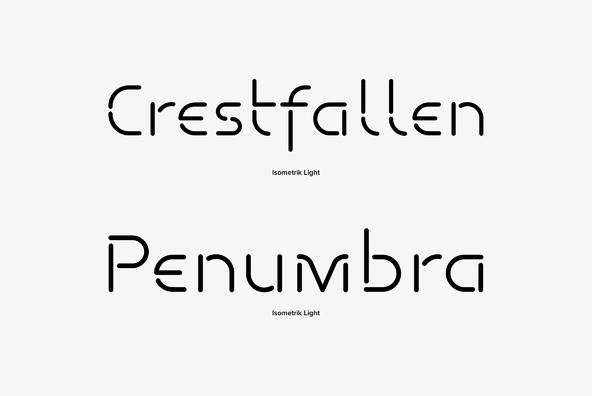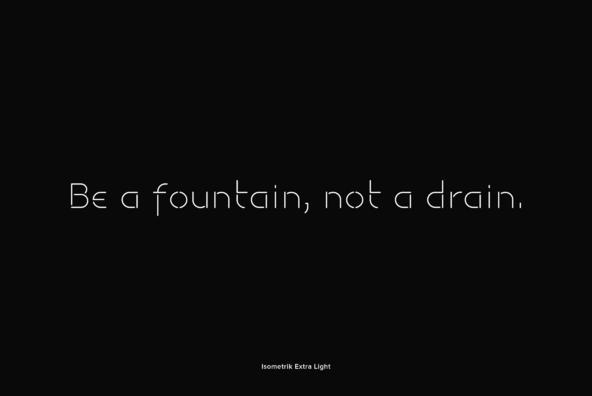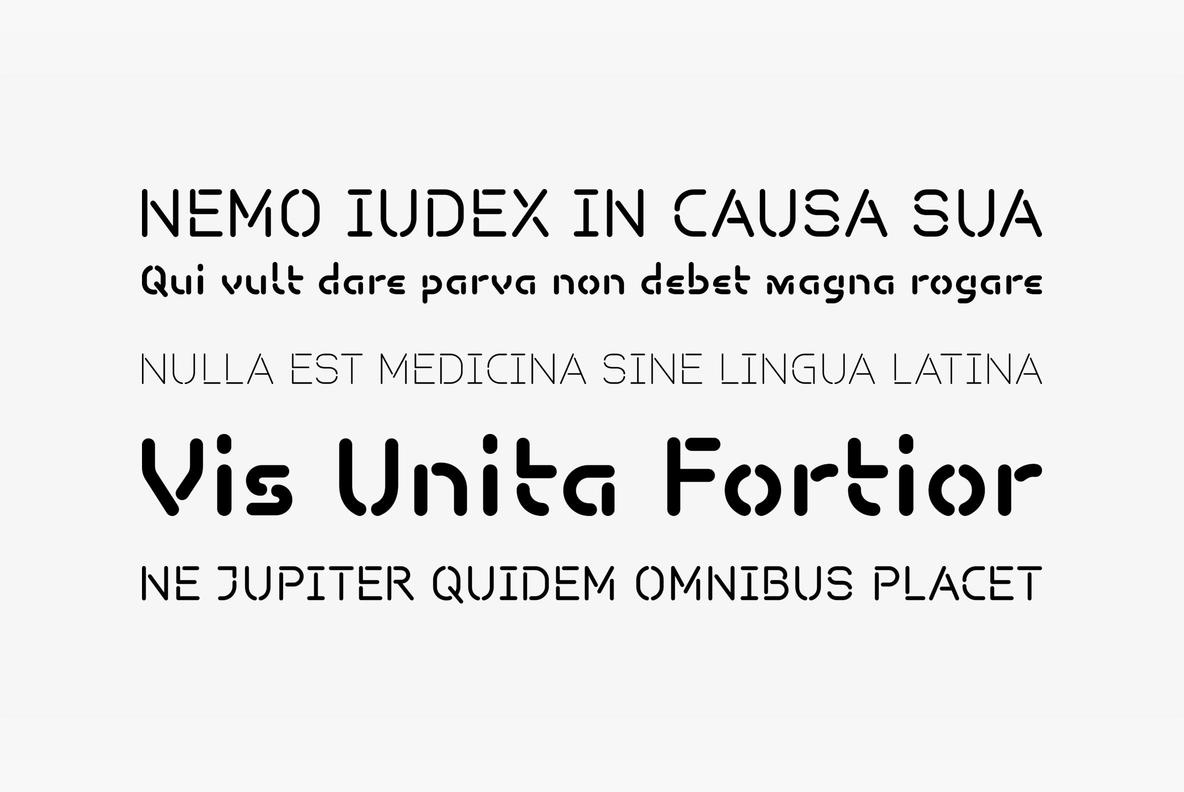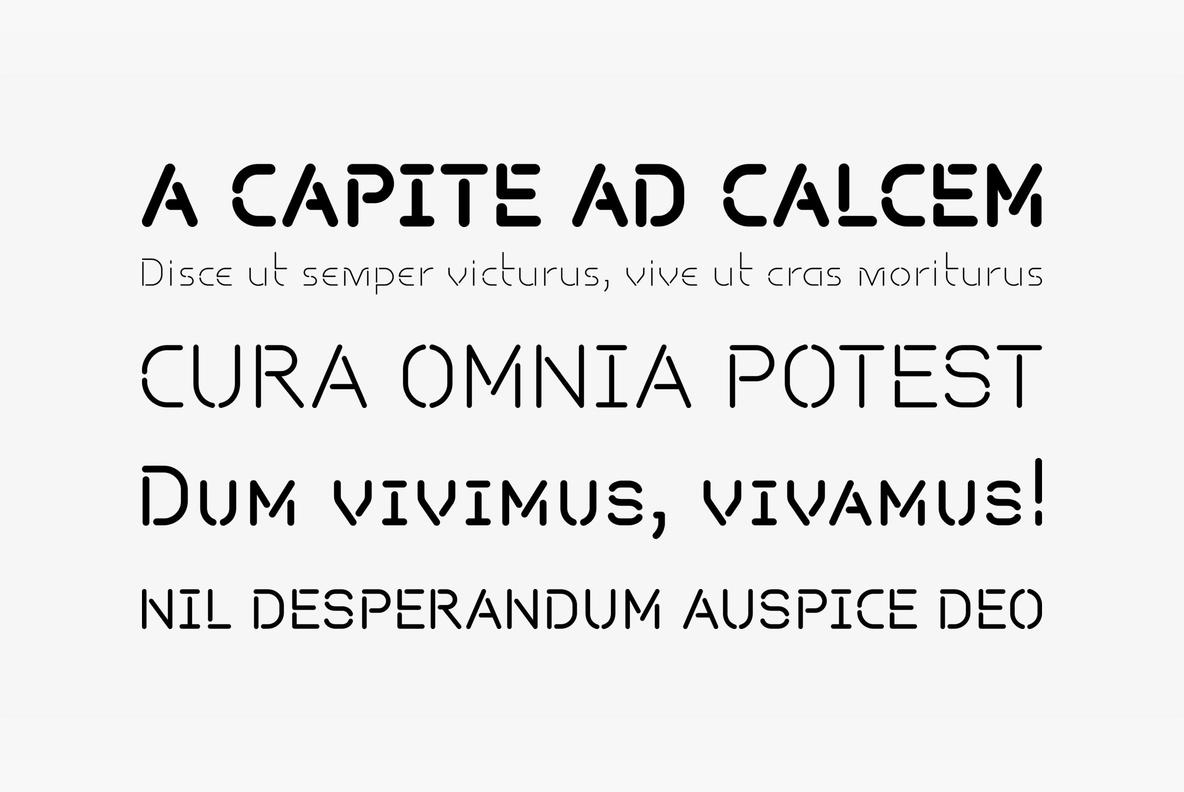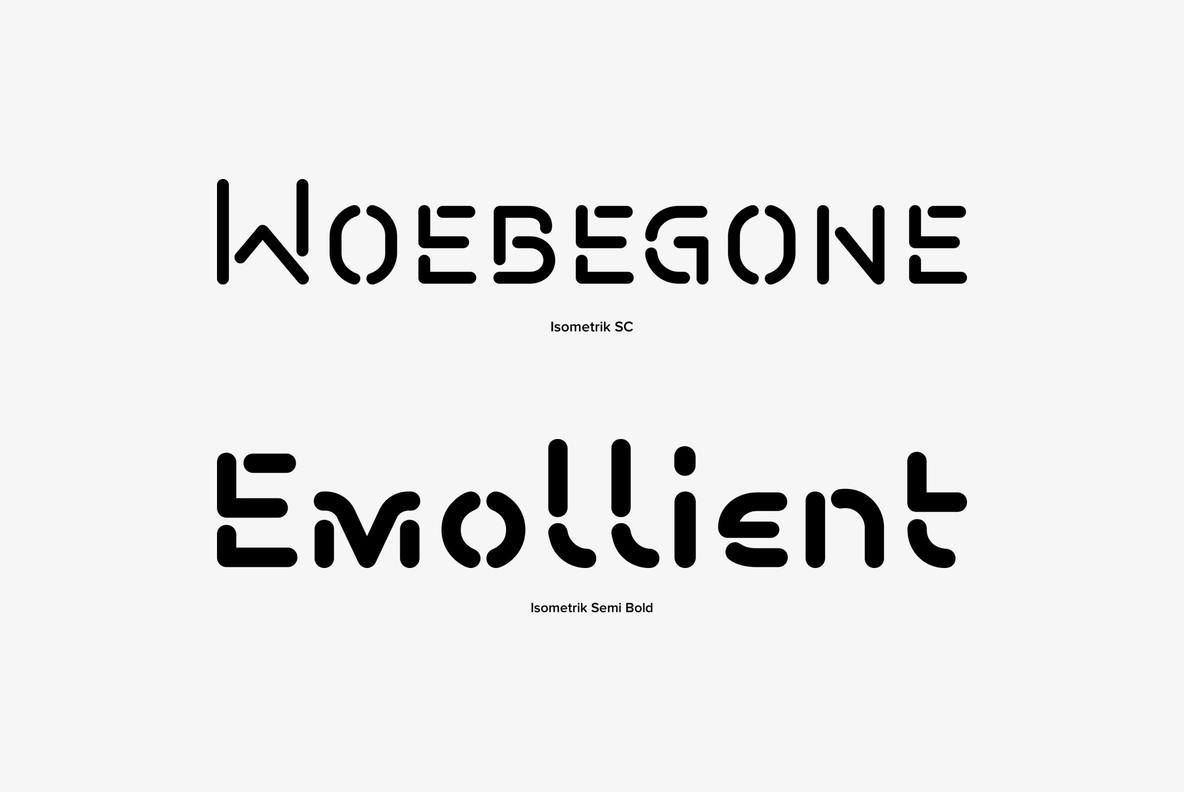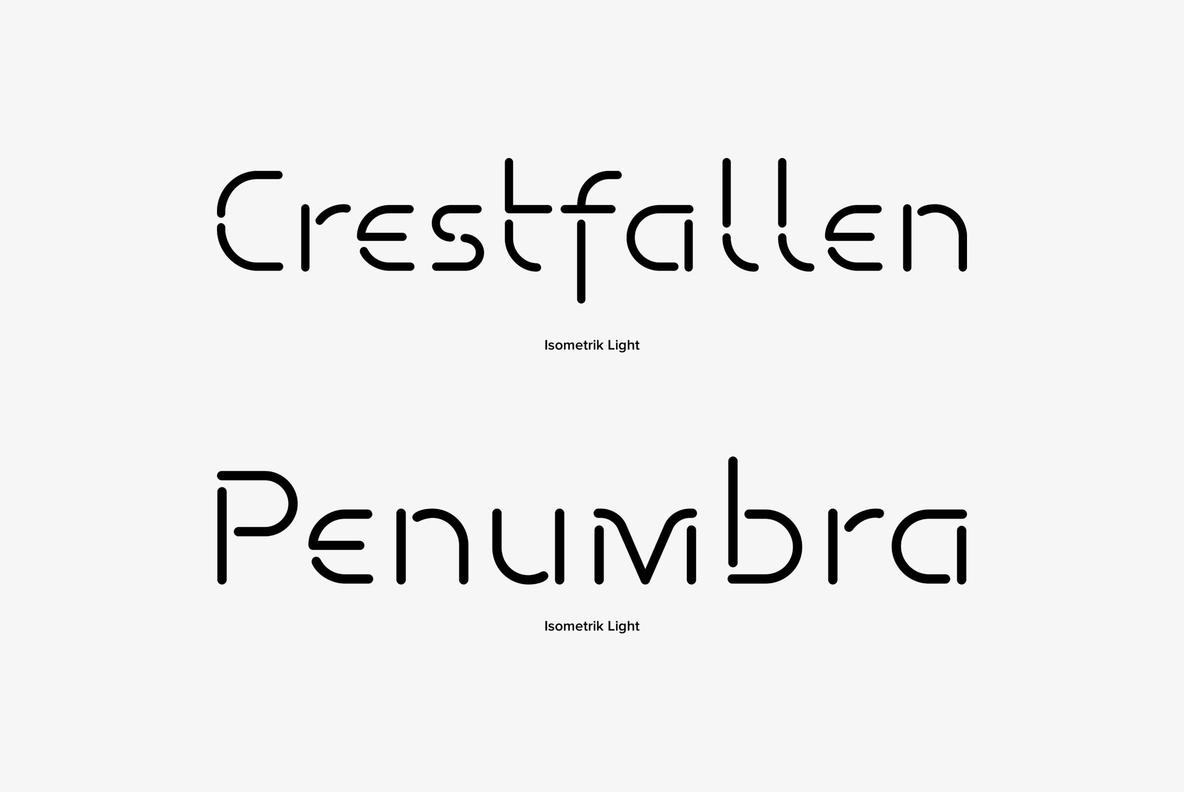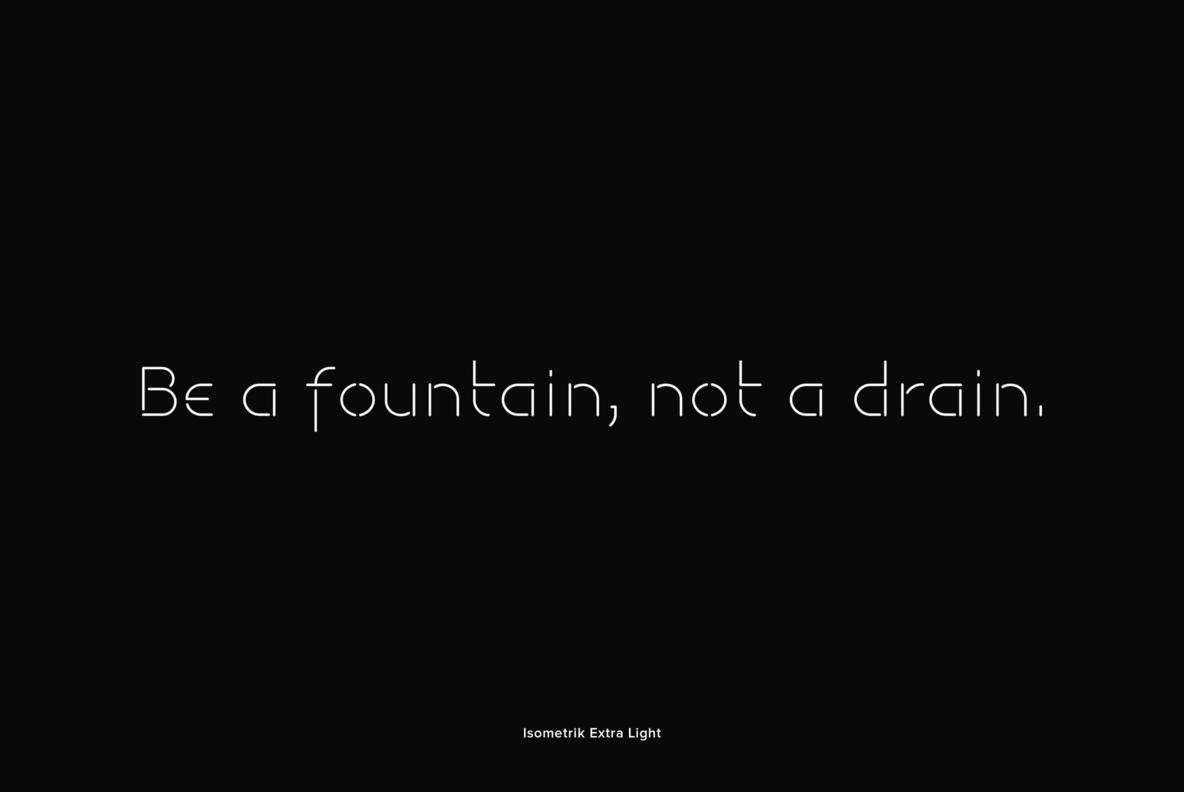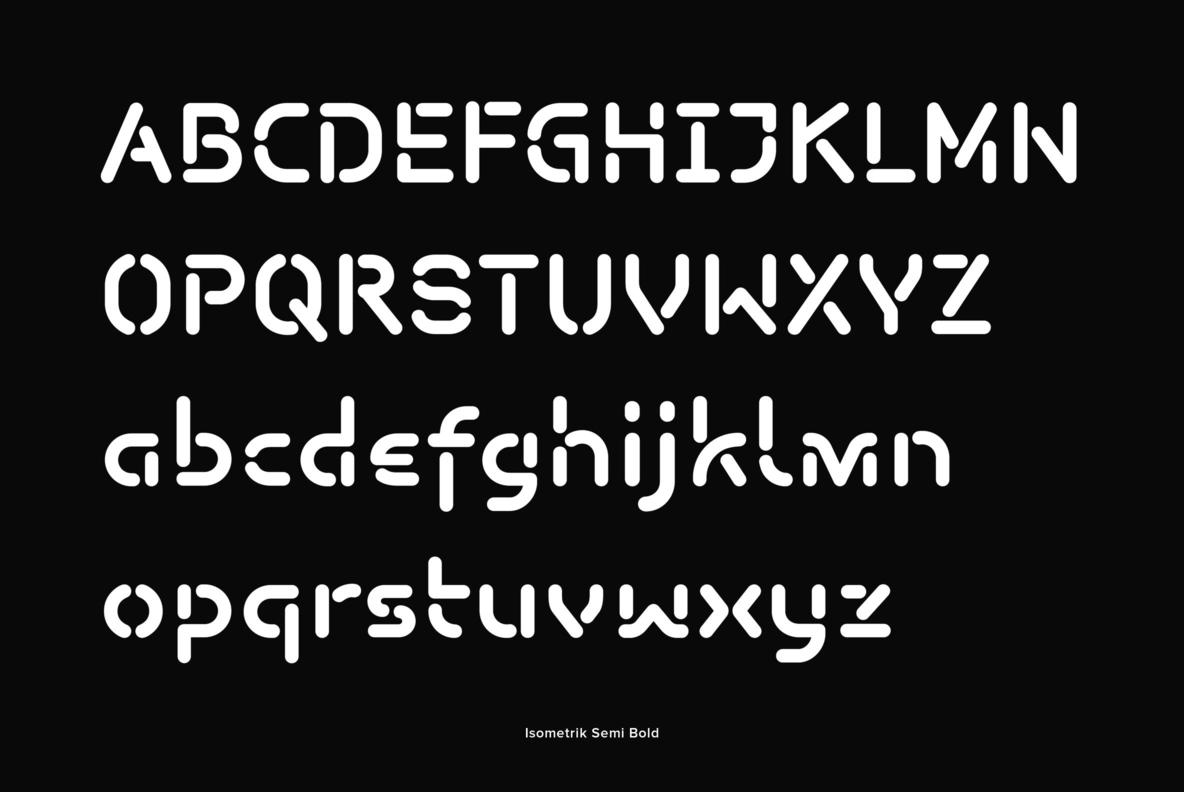
Isometrik
Isometrik is a thin, modern and clean stencil-sans originally designed by Hans-Jürgen Ellenberger, that works great in many design projects. The unique lowercase k brings and interesting presence to your typesetting when used.